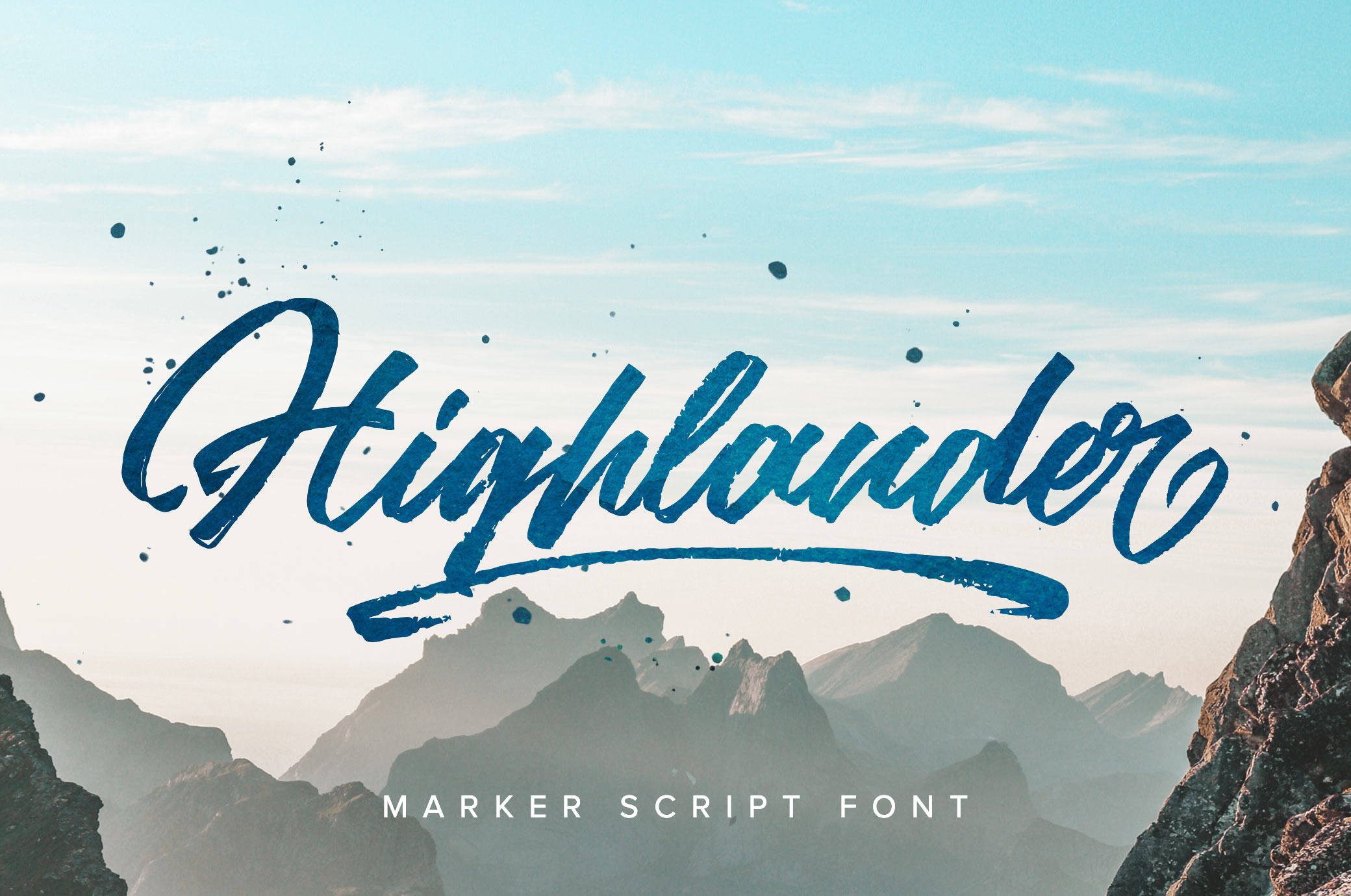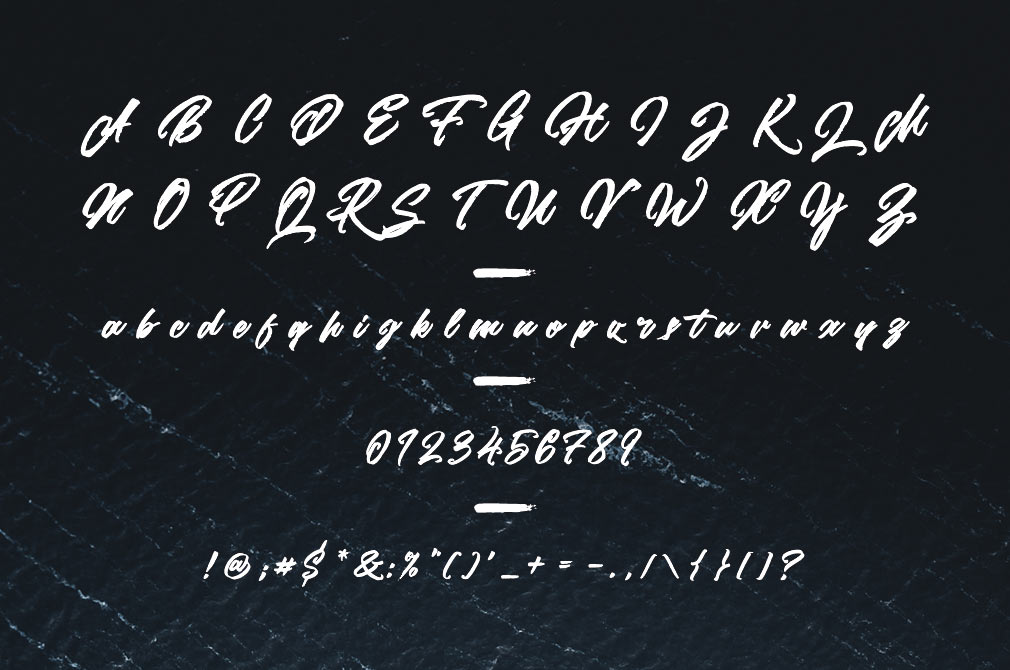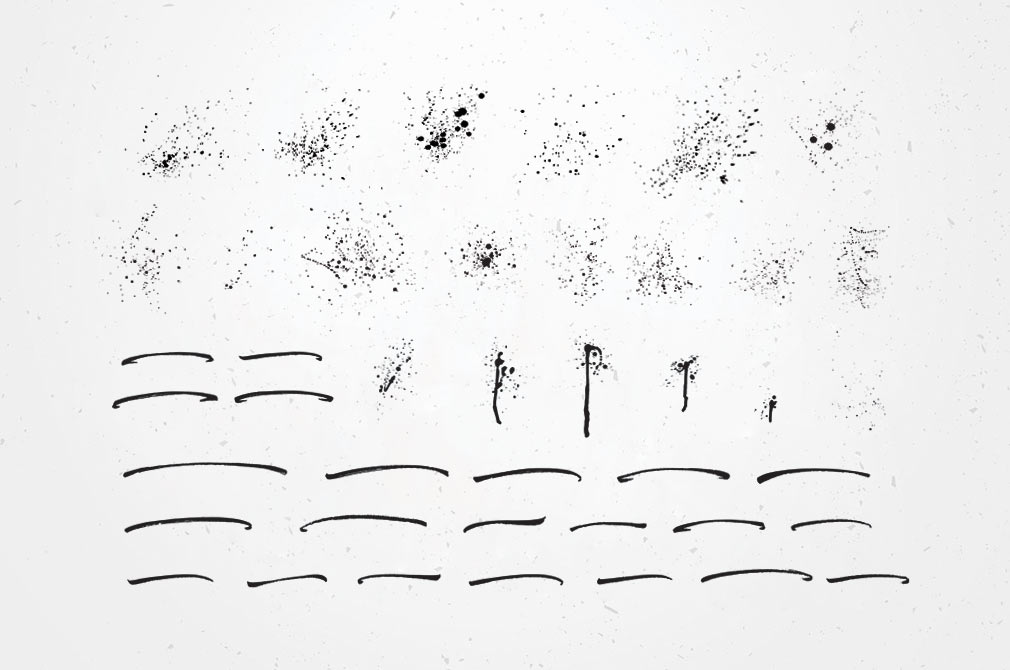
Highlander Marker Script Font . highlander is a calligraphic marker script that boldly spreads its wings with a selection of uppercase and lowercase letters,. highlander is a calligraphic marker script that boldly spreads its wings with a selection of uppercase and lowercase letters, numbers, and punctuation. and because typography stands as an iconic art form as well, we decided to share with you highlander, a calligraphic marker. with thousands of minimalistic typefaces at hand will you ever refuse to have another one — even more inspiring than anything you saw. This font is perfect for adding a personal charm to your logos, branding,. this is a unique stylish highlander marker script font.
highlander is a calligraphic marker script that boldly spreads its wings with a selection of uppercase and lowercase letters, numbers, and punctuation. this is a unique stylish highlander marker script font. and because typography stands as an iconic art form as well, we decided to share with you highlander, a calligraphic marker. This font is perfect for adding a personal charm to your logos, branding,. with thousands of minimalistic typefaces at hand will you ever refuse to have another one — even more inspiring than anything you saw. highlander is a calligraphic marker script that boldly spreads its wings with a selection of uppercase and lowercase letters,.
Highlander Marker Script Font this is a unique stylish highlander marker script font. highlander is a calligraphic marker script that boldly spreads its wings with a selection of uppercase and lowercase letters, numbers, and punctuation. this is a unique stylish highlander marker script font. and because typography stands as an iconic art form as well, we decided to share with you highlander, a calligraphic marker. This font is perfect for adding a personal charm to your logos, branding,. with thousands of minimalistic typefaces at hand will you ever refuse to have another one — even more inspiring than anything you saw. highlander is a calligraphic marker script that boldly spreads its wings with a selection of uppercase and lowercase letters,.
Highlander marker script on Behance Highlander Marker Script Font highlander is a calligraphic marker script that boldly spreads its wings with a selection of uppercase and lowercase letters,. This font is perfect for adding a personal charm to your logos, branding,. with thousands of minimalistic typefaces at hand will you ever refuse to have another one — even more inspiring than anything you saw. this is. Highlander Marker Script Font.
Highlander marker script on Behance Highlander Marker Script Font and because typography stands as an iconic art form as well, we decided to share with you highlander, a calligraphic marker. highlander is a calligraphic marker script that boldly spreads its wings with a selection of uppercase and lowercase letters,. highlander is a calligraphic marker script that boldly spreads its wings with a selection of uppercase and. Highlander Marker Script Font.
Highlander marker script on Behance Highlander Marker Script Font this is a unique stylish highlander marker script font. with thousands of minimalistic typefaces at hand will you ever refuse to have another one — even more inspiring than anything you saw. highlander is a calligraphic marker script that boldly spreads its wings with a selection of uppercase and lowercase letters,. highlander is a calligraphic marker. Highlander Marker Script Font.
HighlanderRegular 1.000 Fonts Free Download Highlander Marker Script Font This font is perfect for adding a personal charm to your logos, branding,. with thousands of minimalistic typefaces at hand will you ever refuse to have another one — even more inspiring than anything you saw. highlander is a calligraphic marker script that boldly spreads its wings with a selection of uppercase and lowercase letters, numbers, and punctuation.. Highlander Marker Script Font.
250 + Free Script Fonts For Designers » CSS Author Highlander Marker Script Font This font is perfect for adding a personal charm to your logos, branding,. highlander is a calligraphic marker script that boldly spreads its wings with a selection of uppercase and lowercase letters,. this is a unique stylish highlander marker script font. and because typography stands as an iconic art form as well, we decided to share with. Highlander Marker Script Font.
Highlander marker script on Behance Highlander Marker Script Font highlander is a calligraphic marker script that boldly spreads its wings with a selection of uppercase and lowercase letters, numbers, and punctuation. This font is perfect for adding a personal charm to your logos, branding,. and because typography stands as an iconic art form as well, we decided to share with you highlander, a calligraphic marker. highlander. Highlander Marker Script Font.
'Highlander' marker script by Kavoon on Dribbble Highlander Marker Script Font This font is perfect for adding a personal charm to your logos, branding,. this is a unique stylish highlander marker script font. highlander is a calligraphic marker script that boldly spreads its wings with a selection of uppercase and lowercase letters,. with thousands of minimalistic typefaces at hand will you ever refuse to have another one —. Highlander Marker Script Font.
Highlander Marker Script Font with thousands of minimalistic typefaces at hand will you ever refuse to have another one — even more inspiring than anything you saw. this is a unique stylish highlander marker script font. highlander is a calligraphic marker script that boldly spreads its wings with a selection of uppercase and lowercase letters,. highlander is a calligraphic marker. Highlander Marker Script Font.
Highlander marker script By Kavoon Me TheHungryJPEG Highlander Marker Script Font highlander is a calligraphic marker script that boldly spreads its wings with a selection of uppercase and lowercase letters, numbers, and punctuation. and because typography stands as an iconic art form as well, we decided to share with you highlander, a calligraphic marker. This font is perfect for adding a personal charm to your logos, branding,. this. Highlander Marker Script Font.